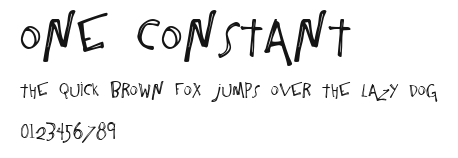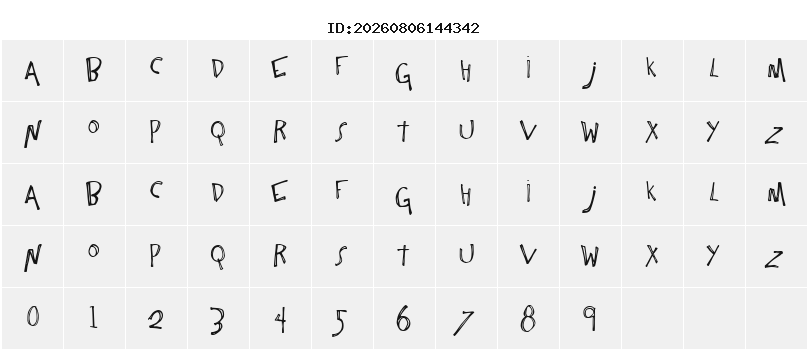
• Font Name: One Constant
• Designer: Tom Murphy 7
• Manufacturer: [ Divide By Zero ] Fonts
• Description: Created by Tom Murphy 7. Uneven handwriting font. Excited. From the Fonts Ladder, and notebook page (http://www.cs.cmu.edu/~tom7/note4/18.gif). [Divide By Zero] fonts: http://fonts.tom7.com/